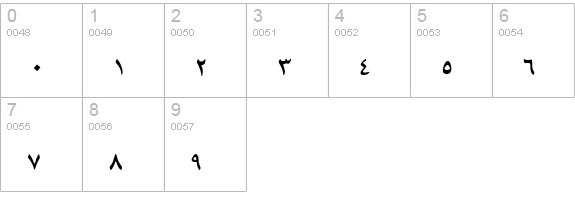
B Mashhad Font Details
B Mashhad font is a stunning display typeface that exudes elegance and sophistication. With its unique blend of sharp lines and subtle curves, this font is perfect for creating eye-catching headlines, posters, and branding materials. The versatility of B Mashhad makes it suitable for a wide range of design projects, from modern and minimalist to classic and ornate. What makes B Mashhad font even more appealing is that it is completely free to download at FontsMarket.com. This means you can enhance your designs with this exquisite font without any cost involved. Whether you're a designer looking to elevate your projects or an individual wanting to add a touch of style to your creations, B Mashhad font is the perfect choice. Download it today and unleash your creativity!